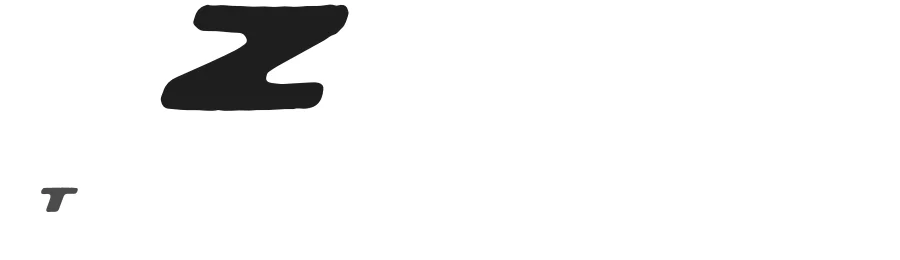
About Kelvinized Font
Kelvinized is a decorative font designed by Mike Maynard. It includes 116 glyphs, a regular weight, TTF (TrueType) format, and 107 languages. Kelvinized is free to download; check the license details on this page before commercial use. Decorative fonts like Kelvinized work best for logos, posters, packaging, and standout headlines.
Kelvinized Font is a decorative font that shines as a display or heading face. Pair it with a clean sans-serif or serif font for body text β the contrast creates a clear hierarchy while the two styles stay balanced and easy to read.
Kelvinized Font
by Mike Maynard